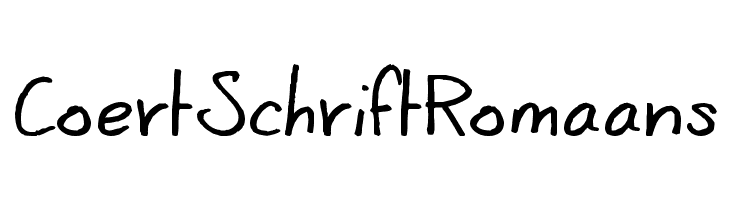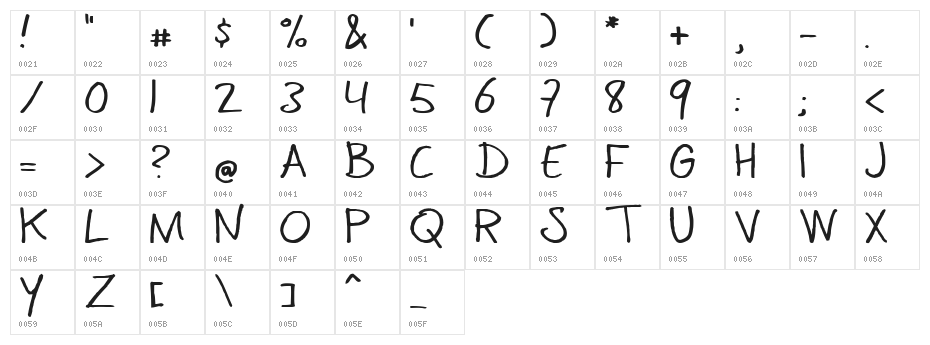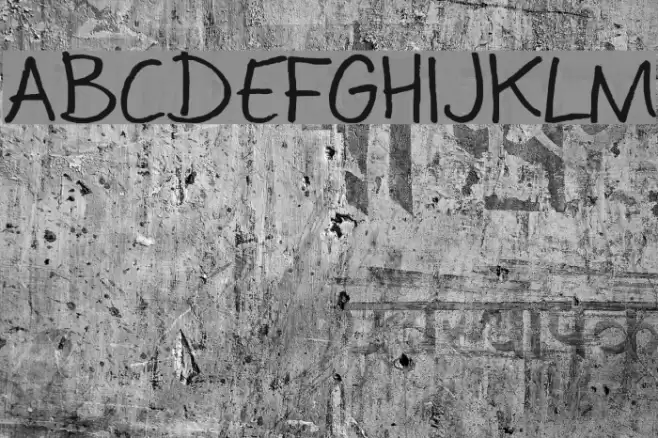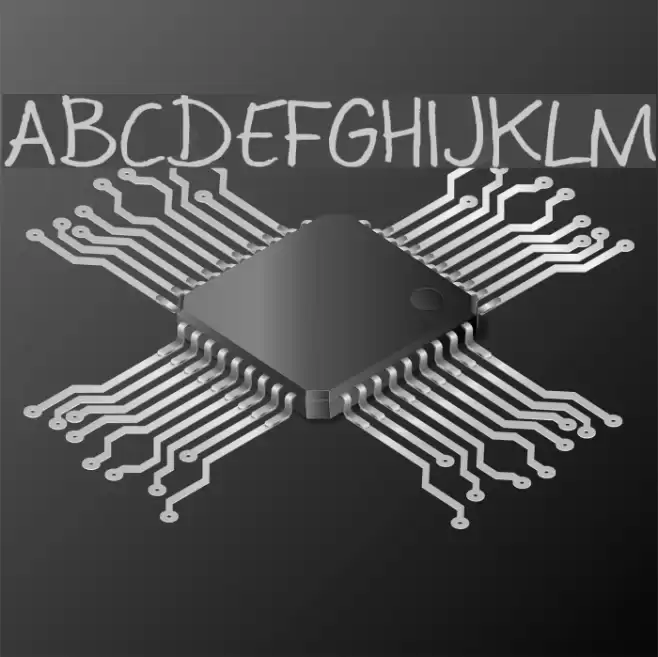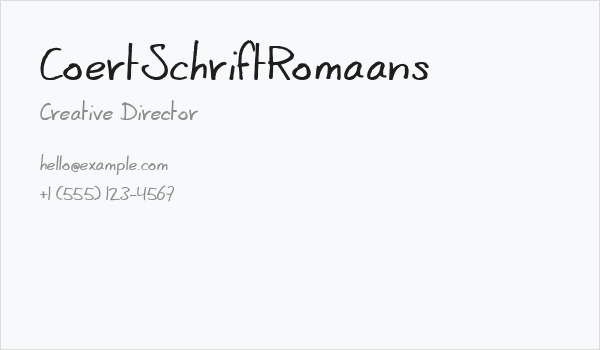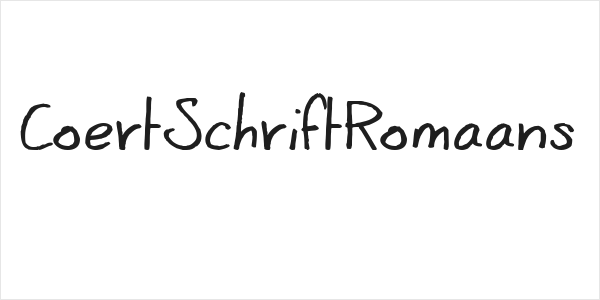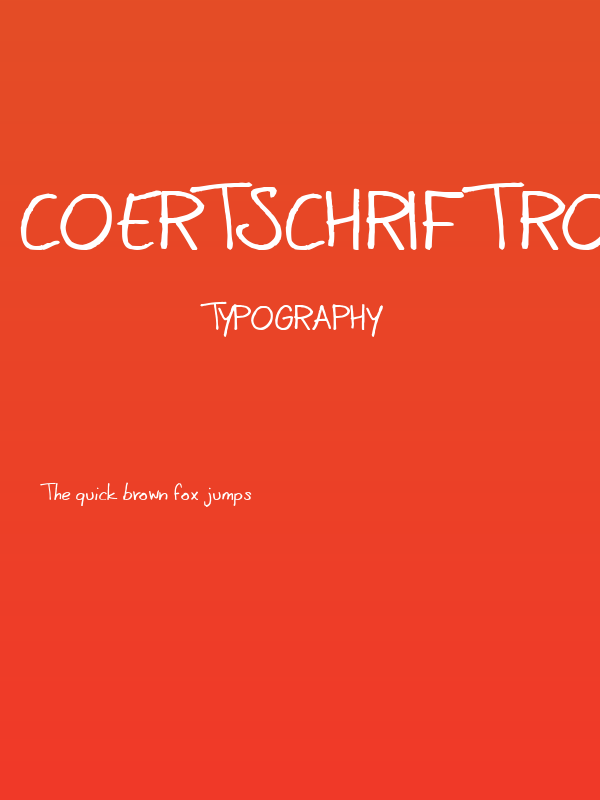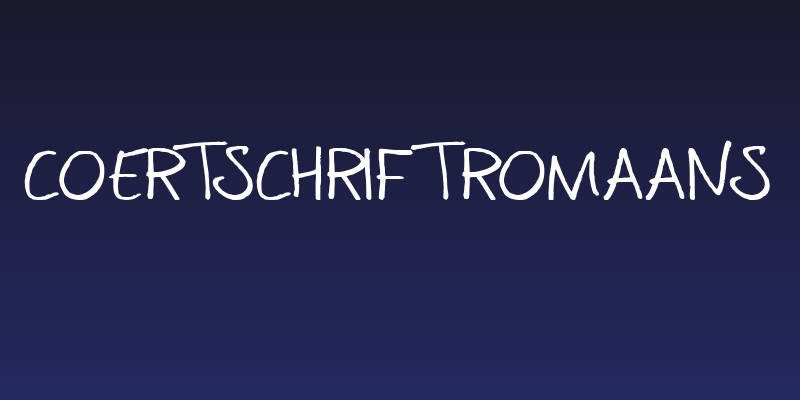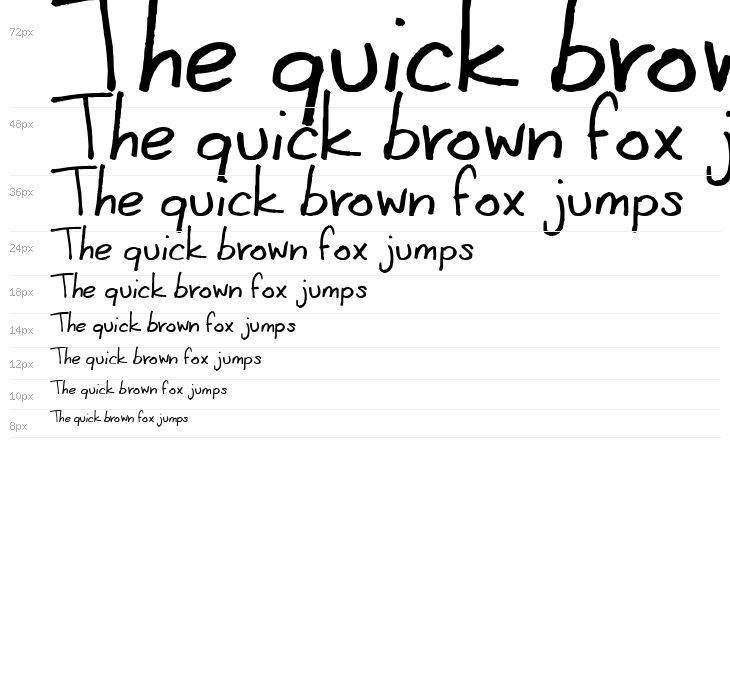
CoertSchriftRomaans Font
CoertSchriftRomaans Description
This font features a playful and casual handwritten style, characterized by its uneven strokes and informal appearance. The letters are slightly slanted, giving a dynamic and lively feel. The uppercase and lowercase letters maintain a consistent style, with rounded edges and a friendly demeanor. The numbers and special characters follow the same informal style, making the font suitable for creative and informal projects. The overall appearance is approachable and relaxed, ideal for conveying a personal touch.
| Use Case | Logos, Invitations, Informal Text |
| Proposed Projects | Great for greeting cards, children's books, personal blogs, and informal branding. |